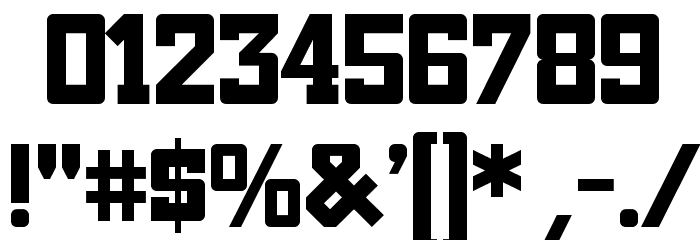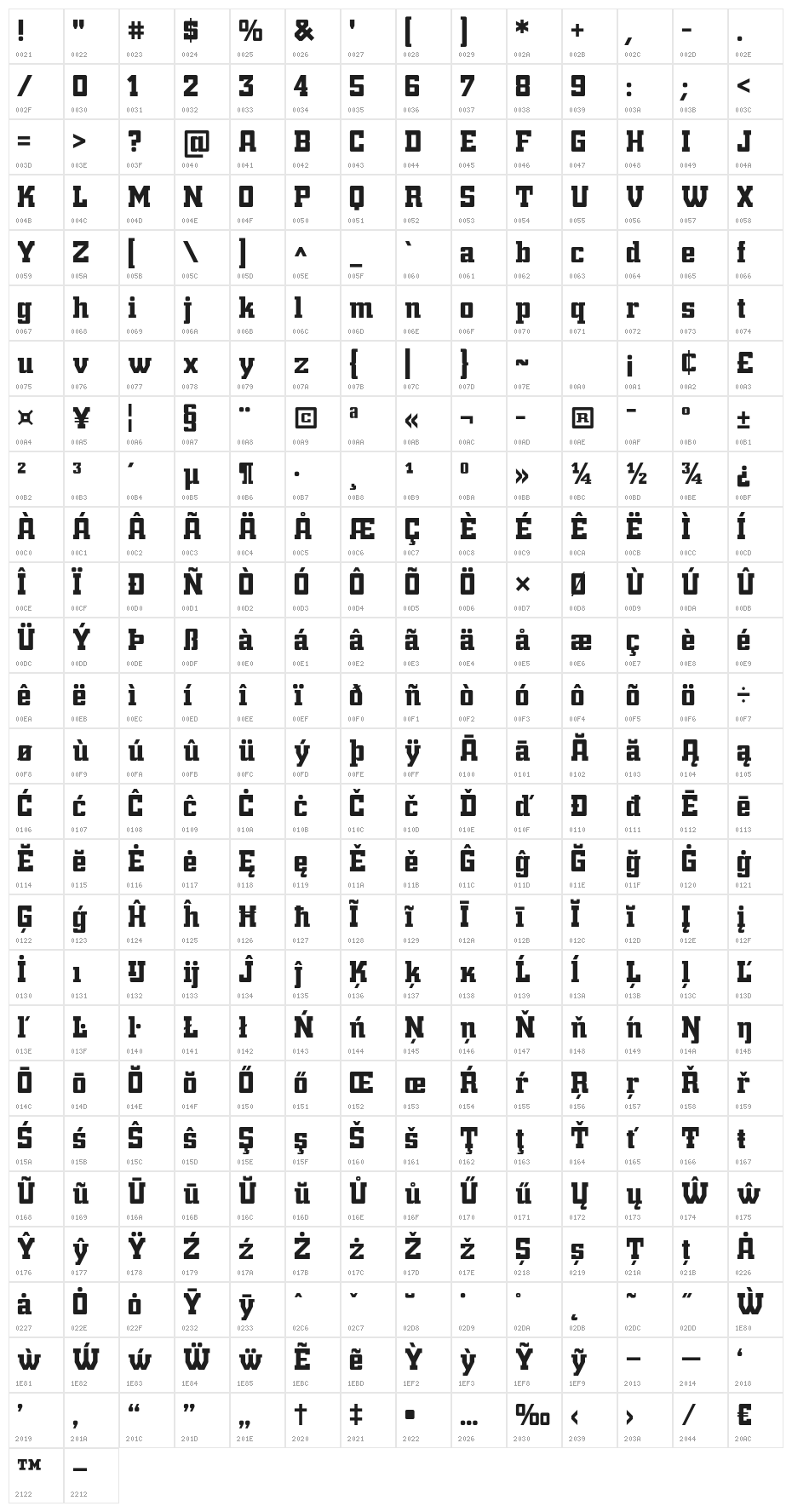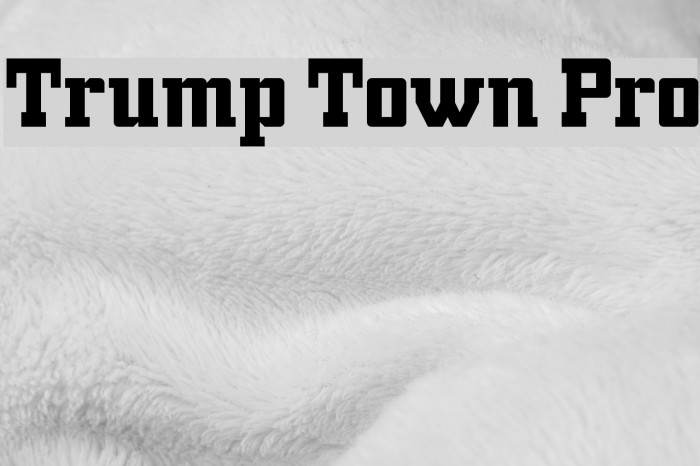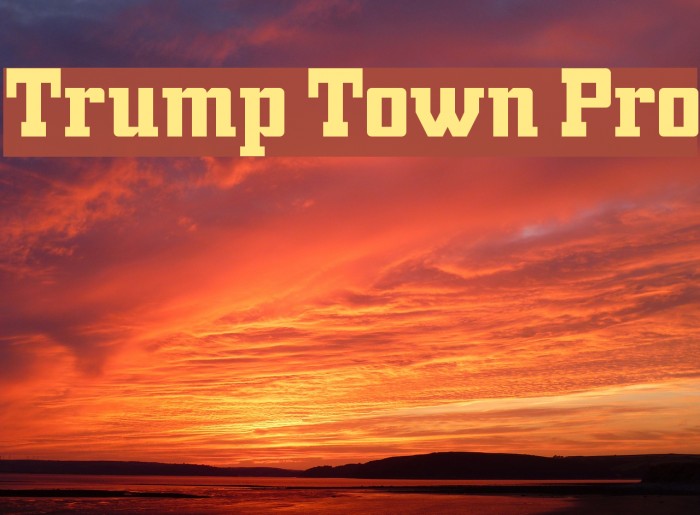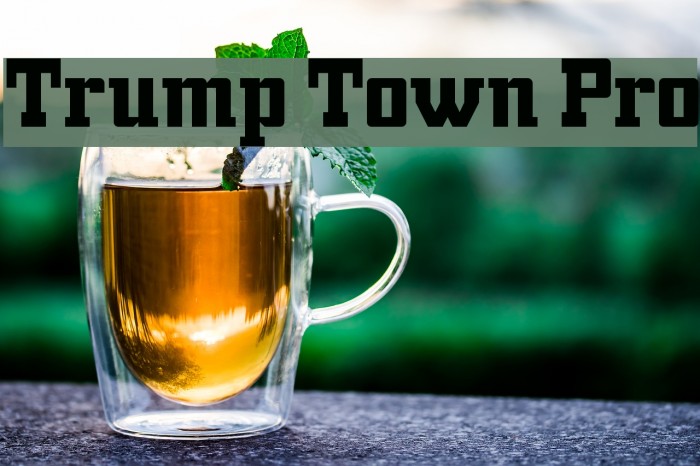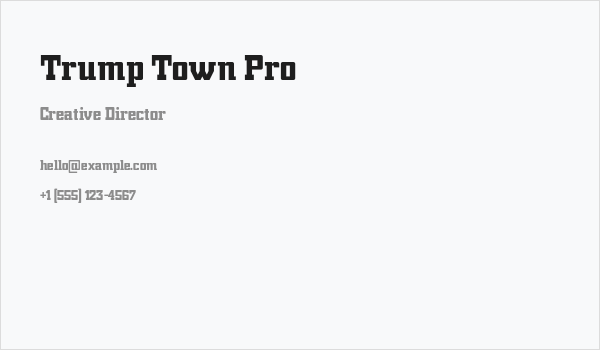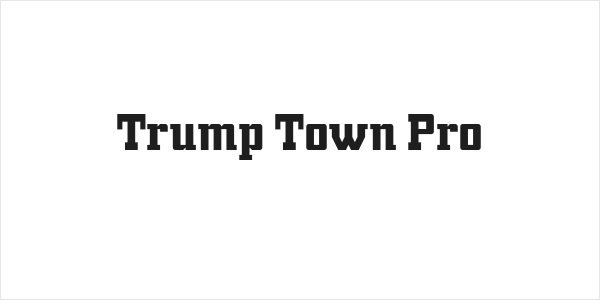
Trump Town Pro Font
Trump Town Pro Description
This font features a bold and robust design with strong geometric shapes and a distinct slab serif style. The uppercase letters are characterized by their blocky and angular appearance, giving a sense of strength and stability. The lowercase letters maintain a consistent weight and structure, complementing the uppercase with a slightly softer edge. Numerals are equally bold, ensuring visibility and impact. The special characters are designed to match the overall aesthetic, making them suitable for various design applications. The font's uniformity and clarity make it ideal for attention-grabbing headlines and titles.